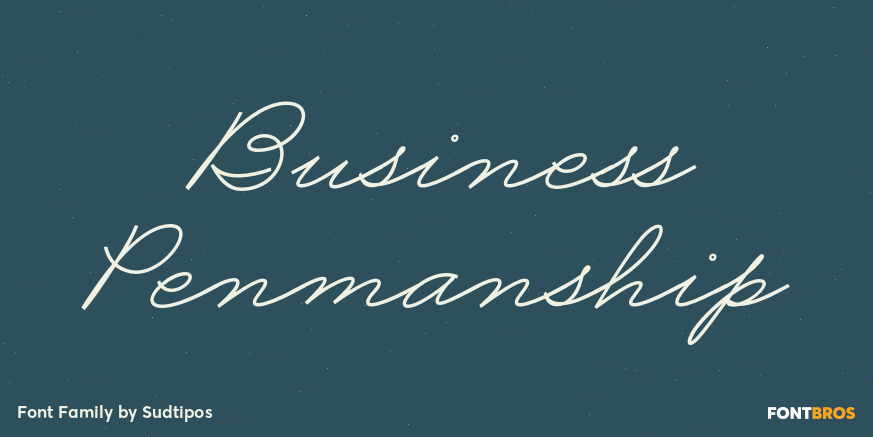
Business Penmanship
About Business Penmanship
Business Penmanship is an ode to the business handwriting from the era penmanship was a highly-valued part of business education and practice.? In the early 1800s, Platt Rogers Spencer (1800-1864) created what would become the most widely accepted and…